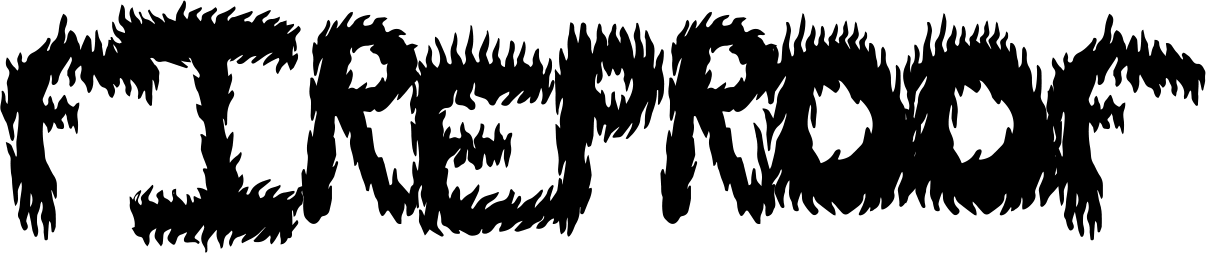
FireProof Font
Wanna show off your text design with an eye-catching ? The FireProof font covers a combination of medium and bold characters that are flamed. This case brings an exotic and exciting feel to your text layouts and fits awesome for movies, branding, Halloween posters, and so forth. Keep in mind, that it doesn’t offer lowercase letters and punctuation. Just give it a shot and enjoy!